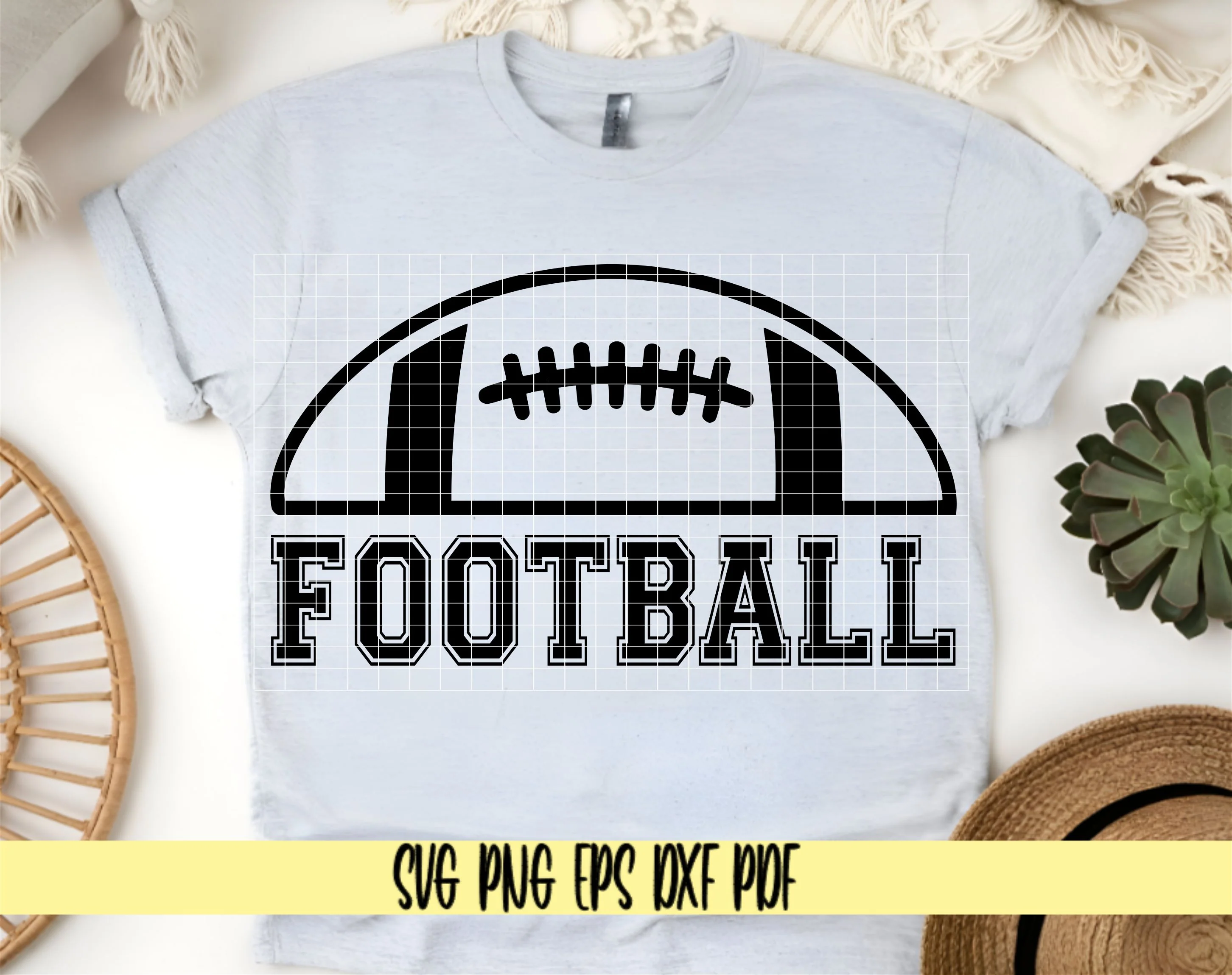
Half Football Varsity Font - Sports Football Design - Digital Cut File for Cricut - SVG PNG PDF DXF EPS
Half Football Varsity Design - Sports Football Design
Show your football pride with this varsity-style Digital design! Perfect for creating custom shirts and apparel
Create amazing football apparel to support your team!